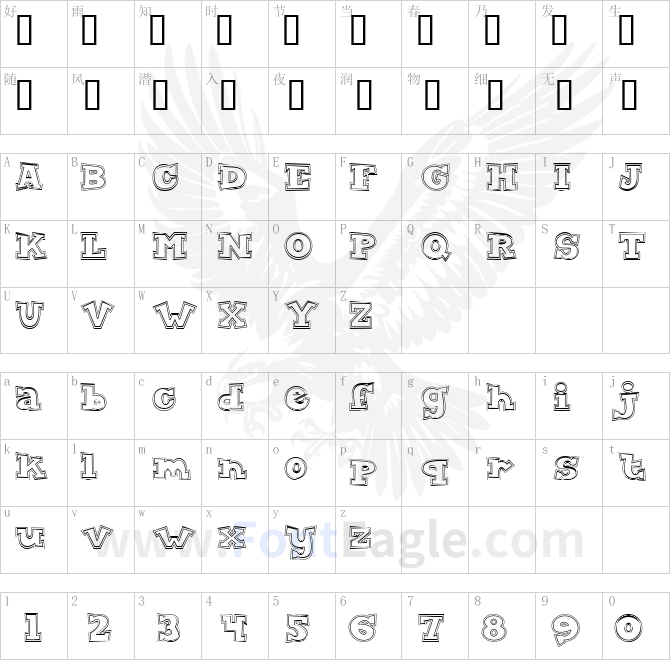
CK-Fan-Club is a great font, widely used in graphic design, single-page menu design, poster design and other fields, and is deeply loved by designers.CK-Fan-Club download.